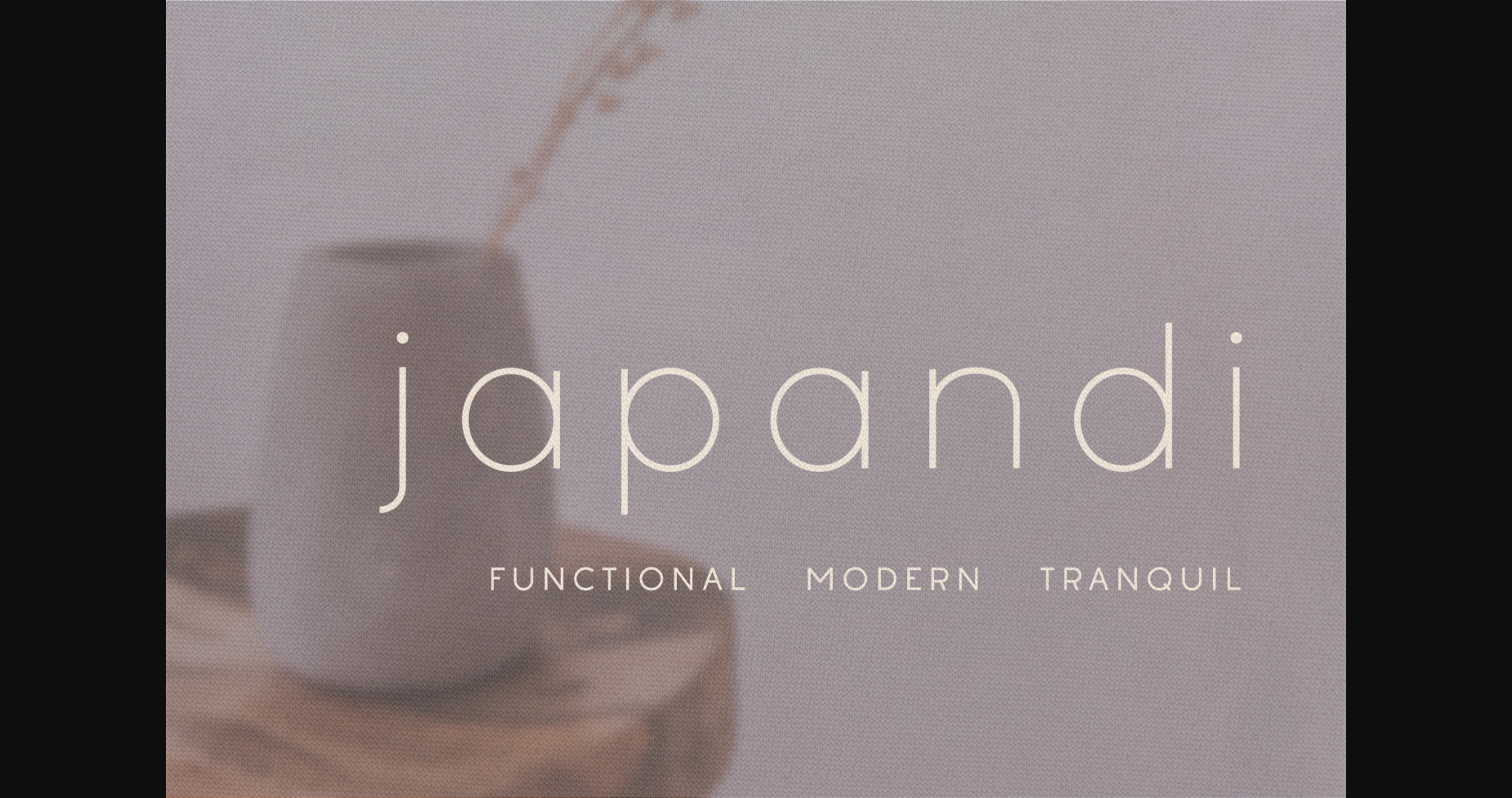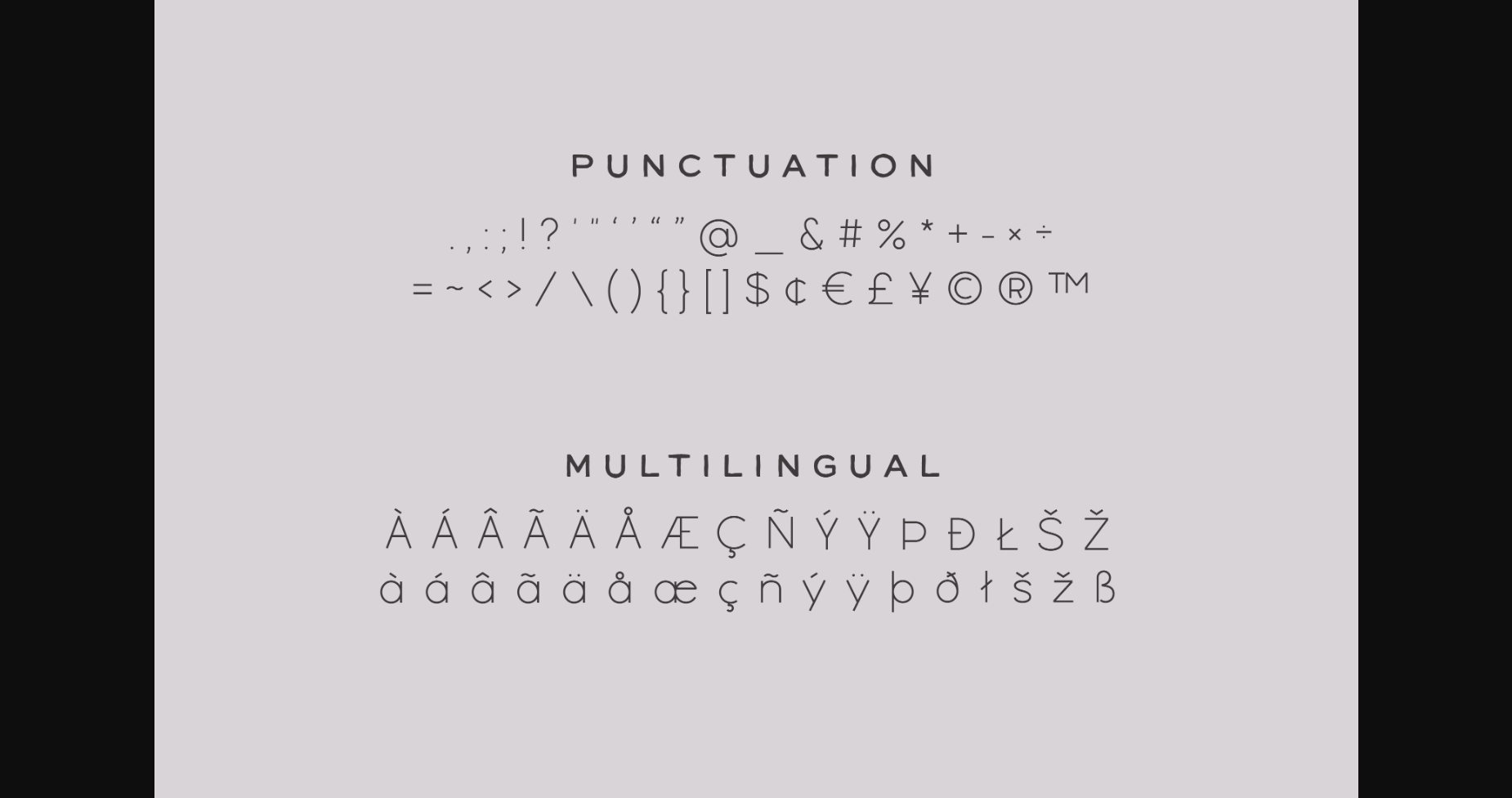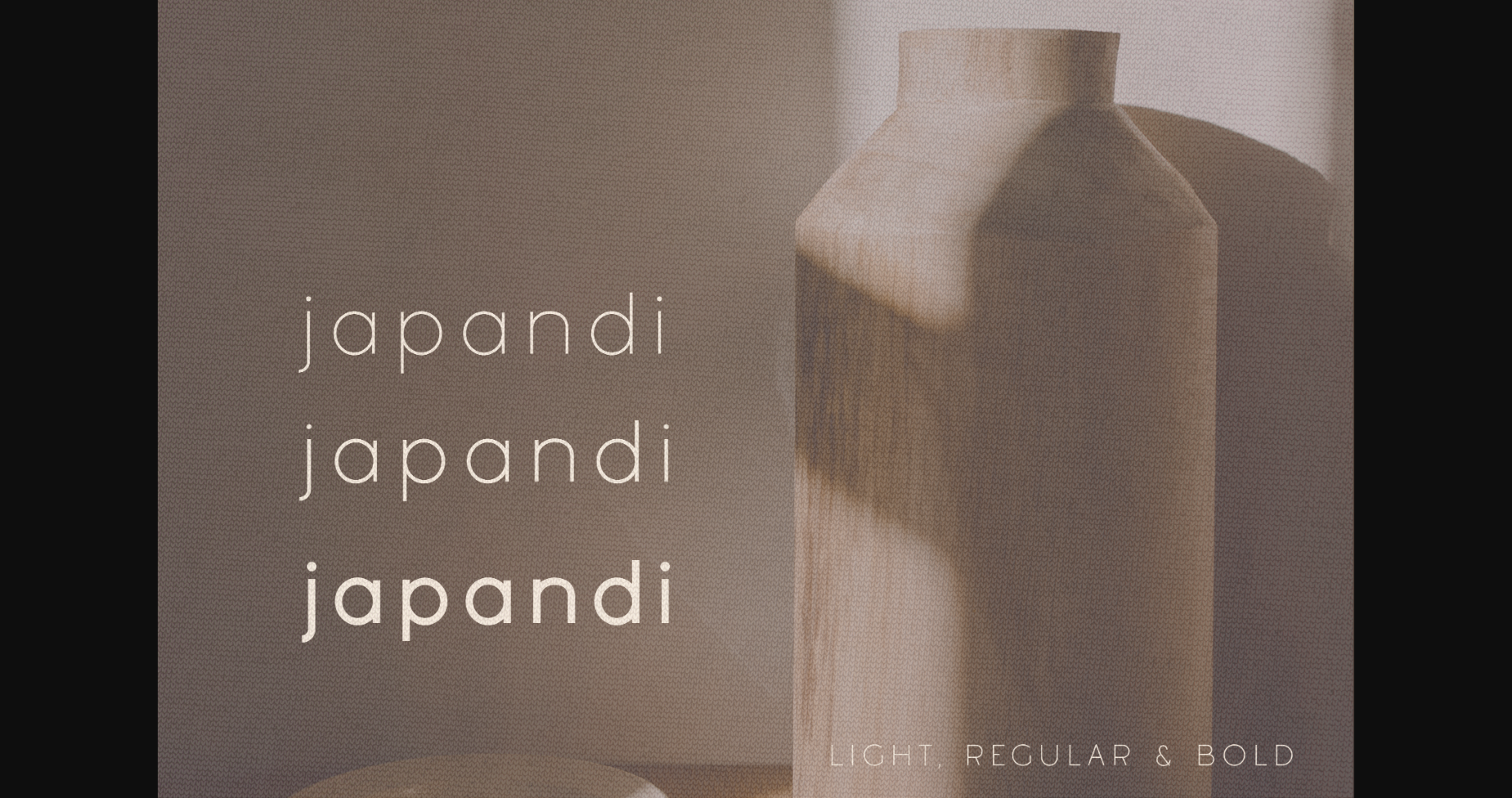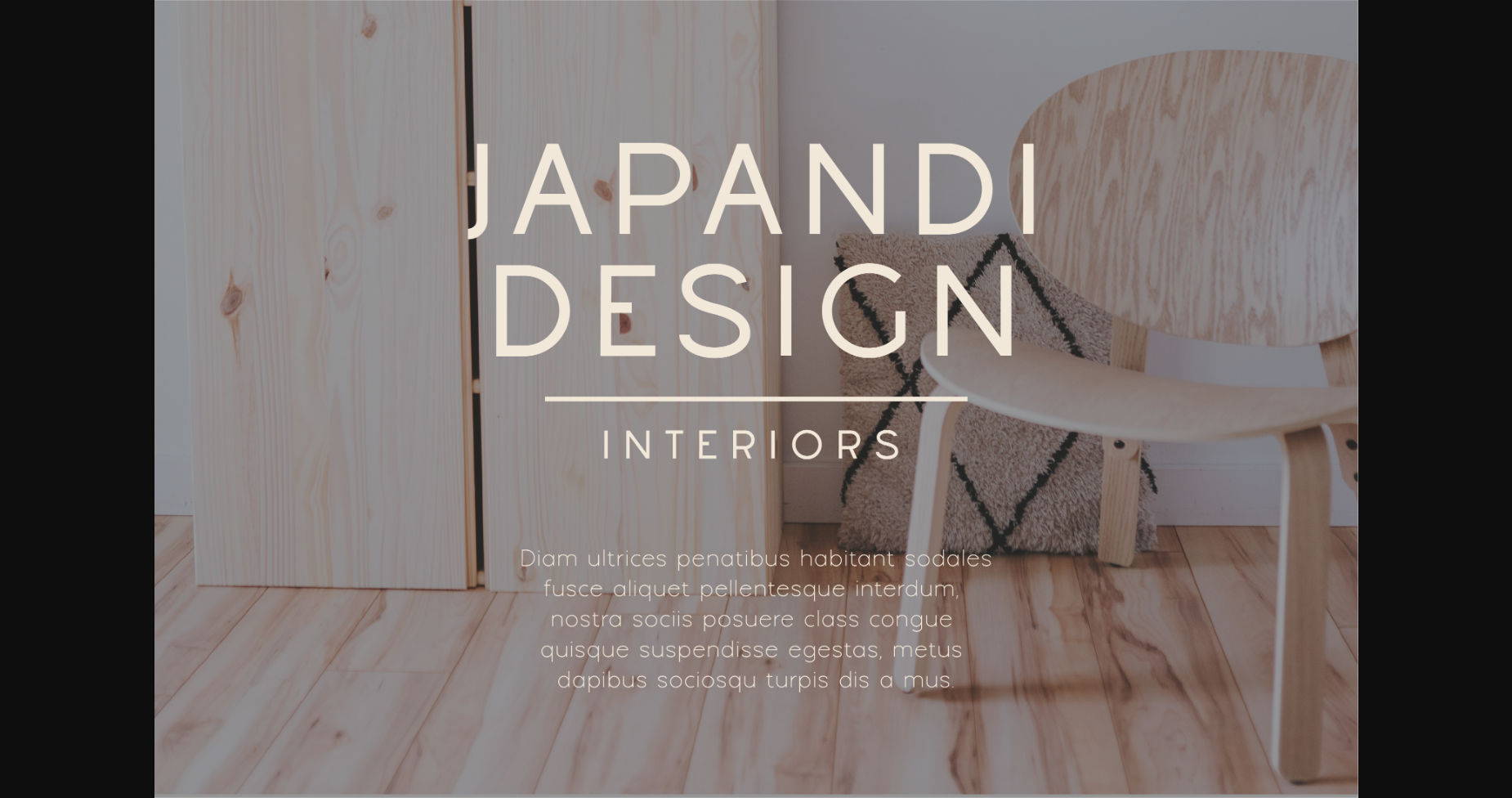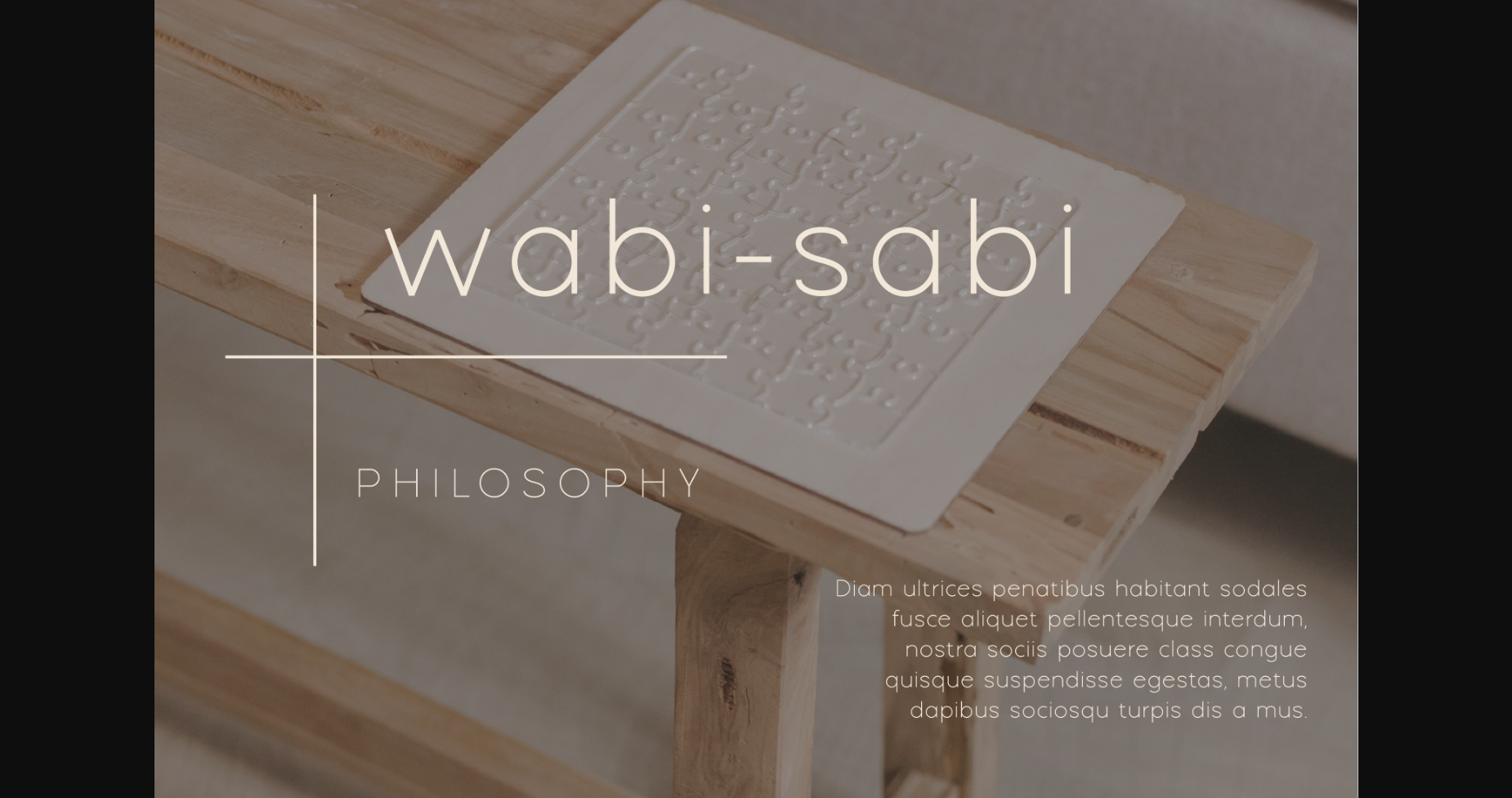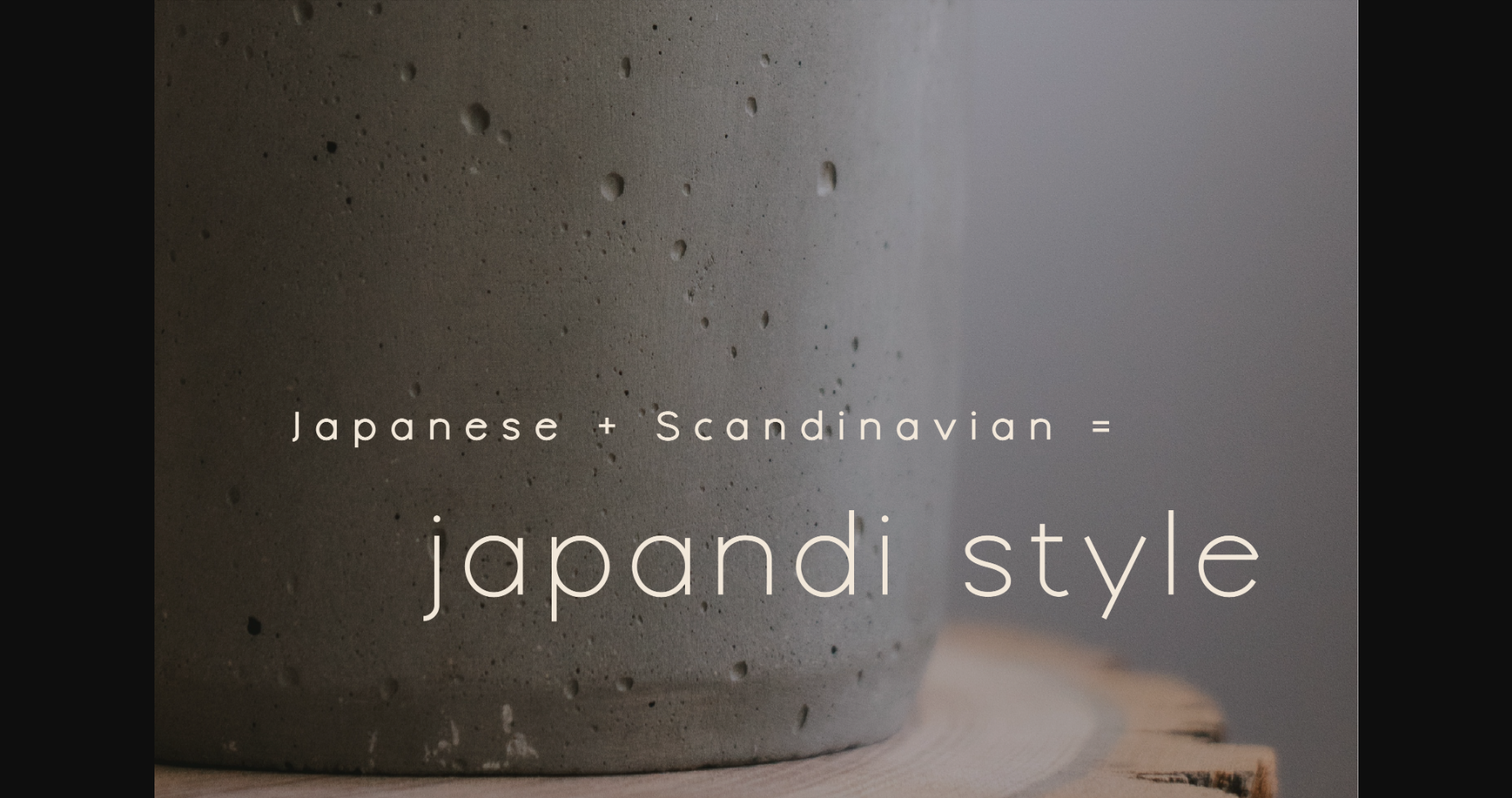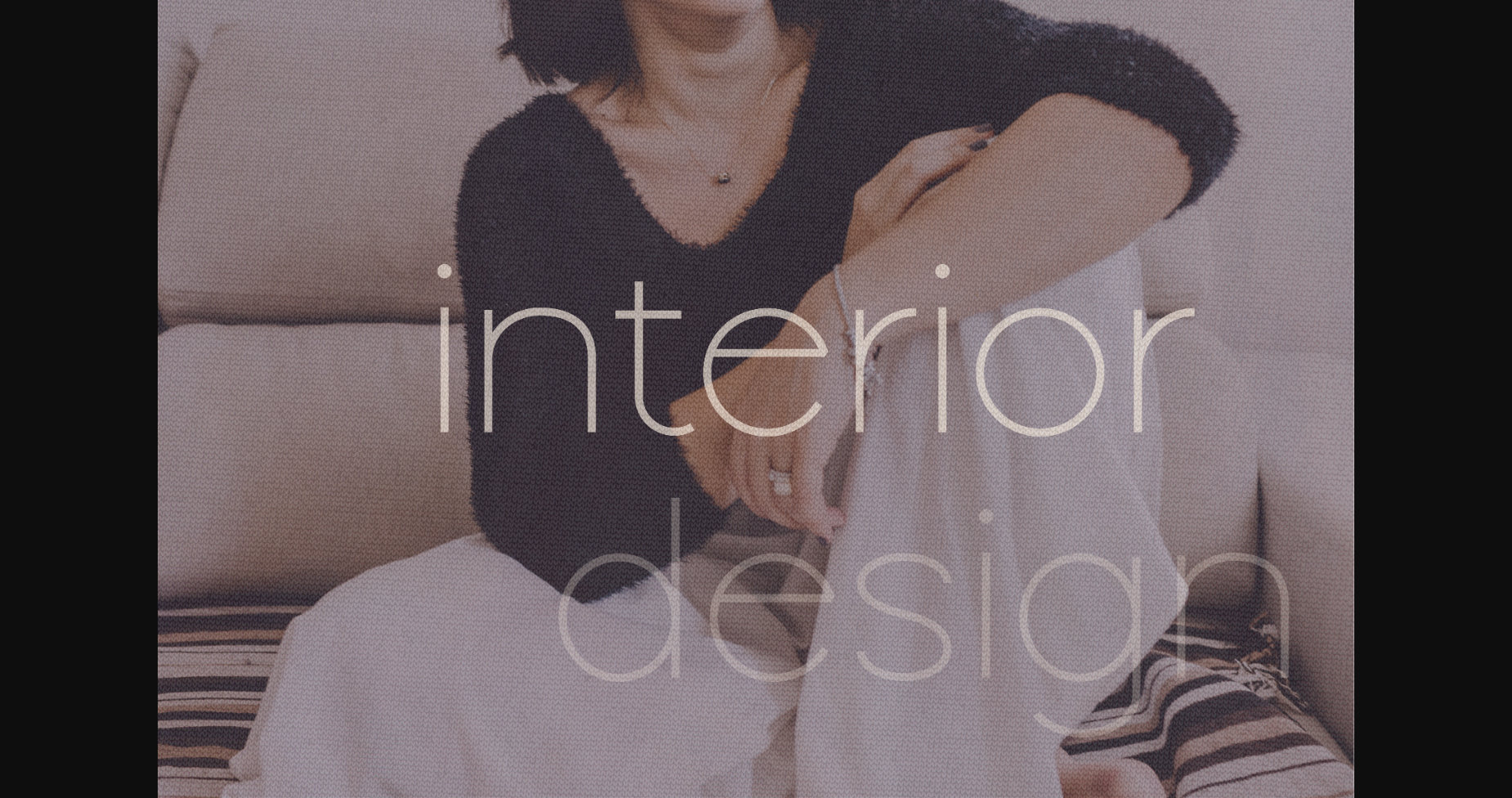
Sans Serif Fonts Japandi Font 0 263 FacebookTwitterPinterestWhatsApp 1 of 10 ... Japandi Font Poster 2... Japandi Font Poster 3... Japandi Font Poster 4... Japandi Font Poster 5... Japandi Font Poster 6... Japandi Font Poster 7... Japandi Font Poster 8... Japandi Font Poster 9... Japandi Font Poster 10... About Japandi Font Japandi is a minimalistic light weight sans serif font with a clean and crisp design. Japandi was designed for interior design related projects. It’s also great for branding, social media, invitations, and more. DOWNLOAD NOW